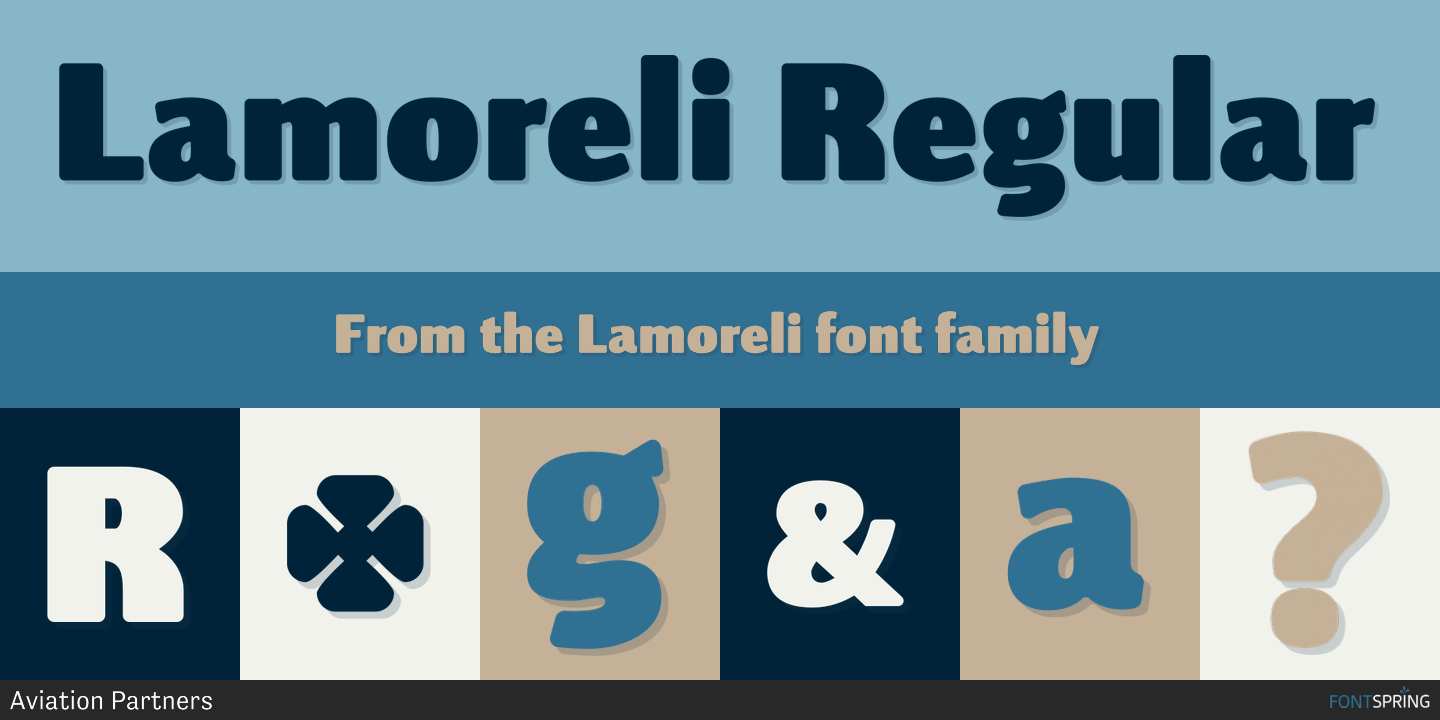
Lamoreli is a display sans font published by Aviation Partners.
Lamoreli is a strong rounded face that provides high impact in a non-aggressive way. It is suitable for display, titling and headlines. It retains integrity even when considerably expanded or condensed.